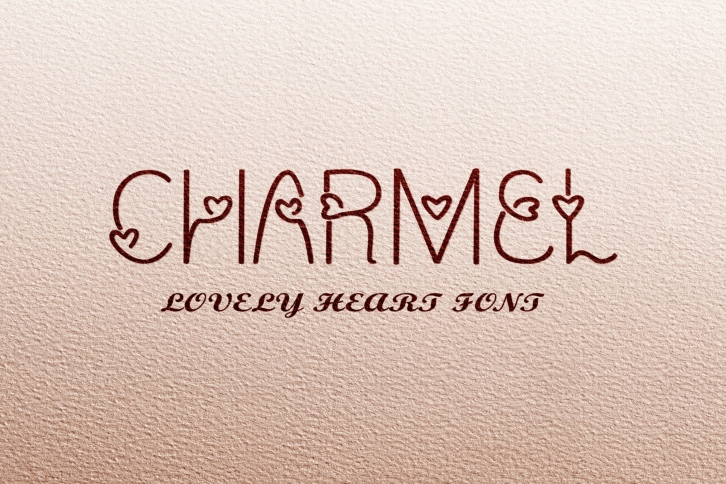
Charmel Love . Valentines Day . Heart . is a gorgeous font that was realeased on April 11, 2021. The font can be used in many style contexts and design environments. Perfect for invitations, magazines, websites, logos, and more! It was designed by Samaha Design and the file size is 17.41 MB. Thanks for checking out this font!